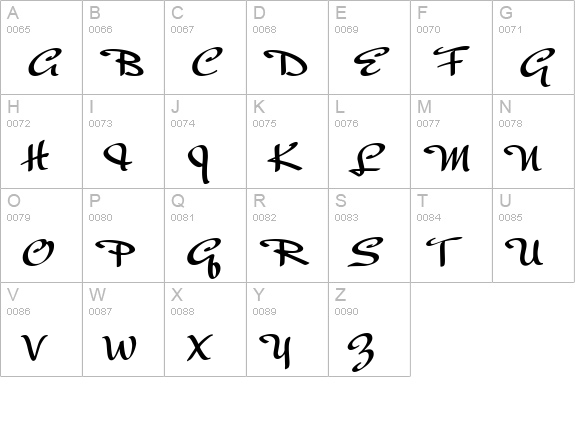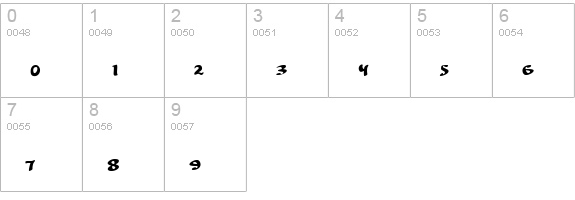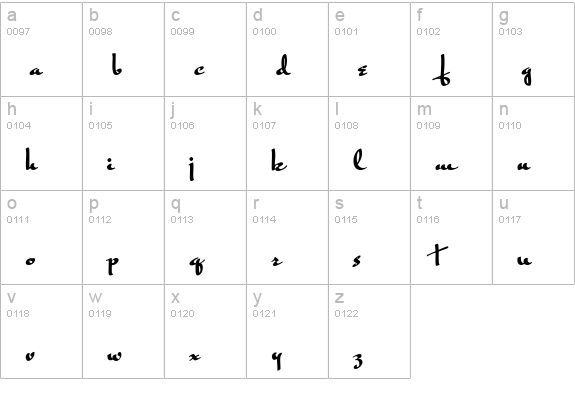
MrRafkin Font Details
Introducing MrRafkin font - a stylish and sophisticated typeface that adds a touch of elegance to any design project. With its unique blend of modern and classic elements, MrRafkin font is truly a versatile choice for both digital and print applications. This font features sleek lines and subtle curves that create a sleek and professional look. Whether you're designing a logo, website, or print materials, MrRafkin font is sure to make a statement. Best of all, MrRafkin font is available for free download at FontsMarket.com. So, why wait? Add this stunning font to your collection today and elevate your designs to the next level.